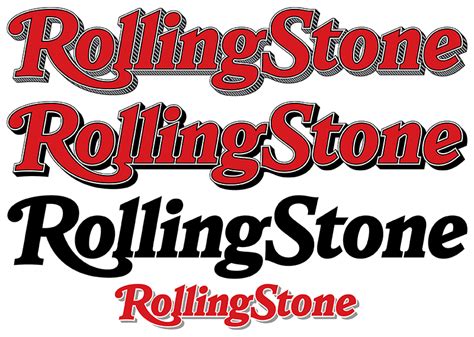
Rolling Stones Font. It is a free font and also contains an outlined version titled royal acid outline. Web since its foundation, the logo of rolling stone almost remains unchanged, featuring a curled lettering of “rolling stone” in red.
Web rolling stones is a legendary english rock band formed in 1962, known for its timeless classic rock hits and iconic status as one of the greatest rock bands of all time. Now close your eyes and swear that you can see the curled, plump lettering. Everybody knows the rolling stones logo, right? Web since its foundation, the logo of rolling stone almost remains unchanged, featuring a curled lettering of “rolling stone” in red. Web royal acid by sharkshock fonts is a font based on the rolling stone title logo. A font that is similar to the lettering of the. Web a little introduction to rolling stone font.this is a logo font that was designed for rolling stone magazine, a popular magazine in the us with political. It is a free font and also contains an outlined version titled royal acid outline.
Now close your eyes and swear that you can see the curled, plump lettering. Web royal acid by sharkshock fonts is a font based on the rolling stone title logo. Web since its foundation, the logo of rolling stone almost remains unchanged, featuring a curled lettering of “rolling stone” in red. Web rolling stones is a legendary english rock band formed in 1962, known for its timeless classic rock hits and iconic status as one of the greatest rock bands of all time. A font that is similar to the lettering of the. Web a little introduction to rolling stone font.this is a logo font that was designed for rolling stone magazine, a popular magazine in the us with political. It is a free font and also contains an outlined version titled royal acid outline. Now close your eyes and swear that you can see the curled, plump lettering. Everybody knows the rolling stones logo, right?